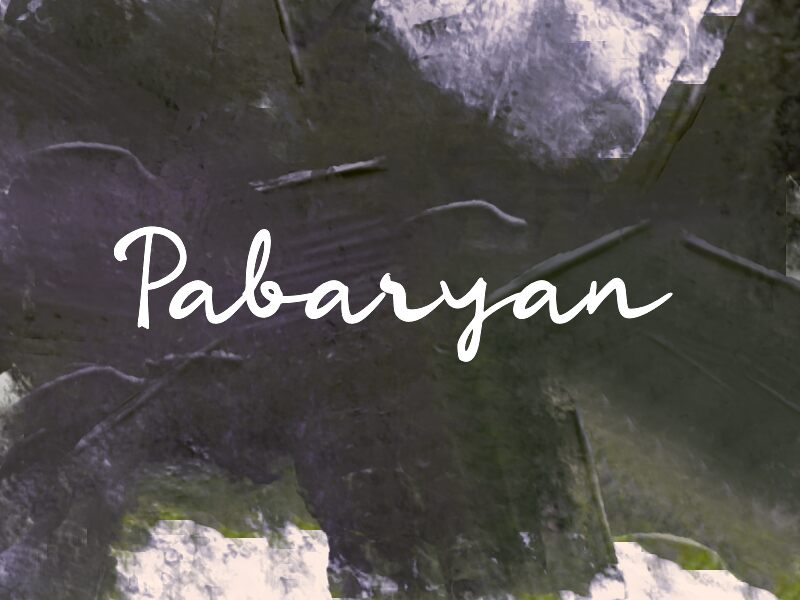
Pabaryan font was created by Wep and is a free handwritten font that naturally captures a casual, elegant, and modern feel. It is expressive, flowing, and informal yet relaxed with an approachable and artistic feel. The author's intention behind the creation was to reinvent beauty and legibility in a masterpiece that will easily comply with any intended usage. Design enthusiasts are presented with a font that is both fun and practical to experiment with.
Explore how this font will look like on catchy greeting cards, packaging designs, and other branding ideas. In addition, Pabaryan will breathe life into your stationery designs, envelopes, magazine covers, blurbs, longitudinal website headers, and email marketing graphics. Basically, any nature of an artistic project will be enhanced by this cool typeface in every way possible.
Pabaryan is a stylish and elegant free font that brings a contemporary touch to your designs. With its unique letterforms and artistic flair, this font is perfect for a wide range of applications, from branding to web design. Whether you're creating a logo, poster, or social media graphics, Pabaryan will elevate your work and captivate your audience.